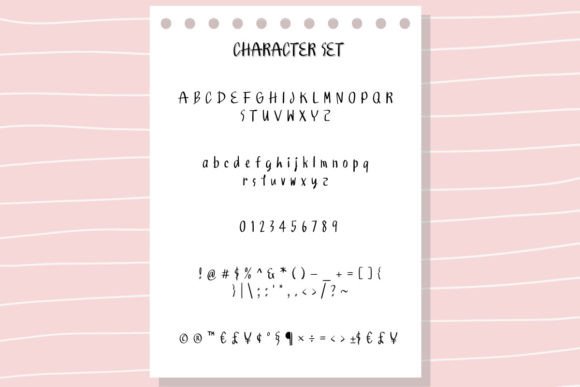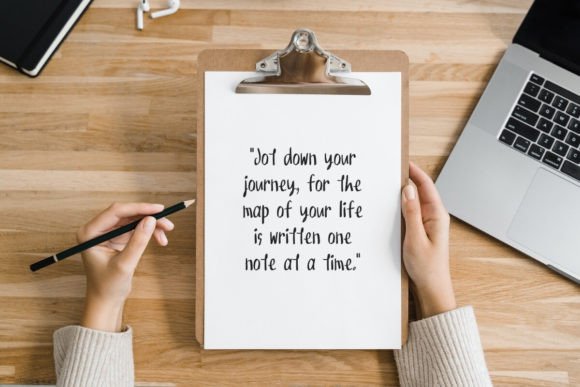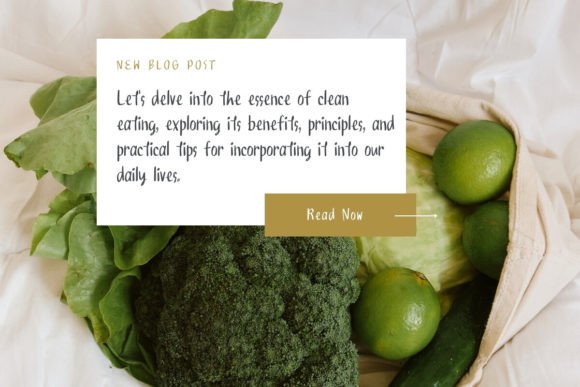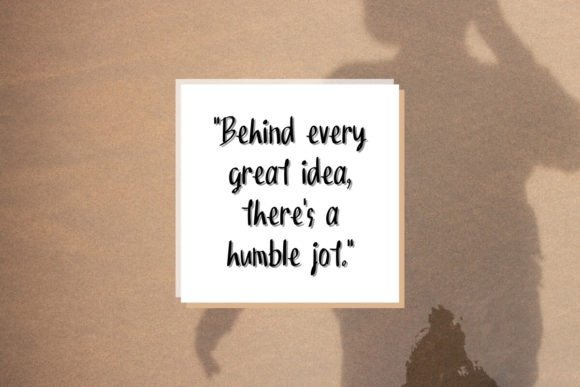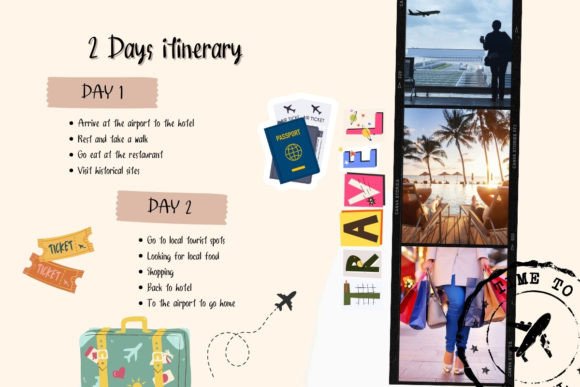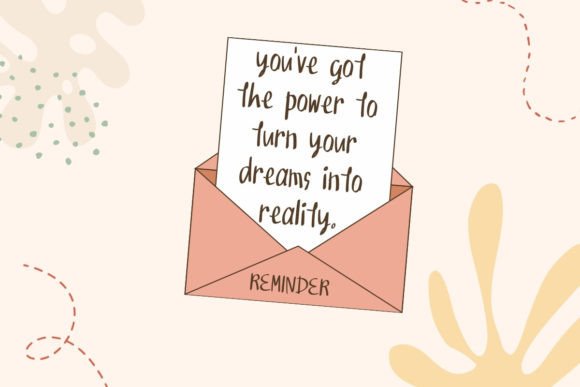
Introduction to Jotifyme Font
Meet JotifyMe, a neat and cute handwriting font that adds a personal touch to every project.
With its clear and charming style, JotifyMe is perfect for everything from greeting cards and invitations to planners and notebooks Its friendly appearance makes your notes and to-dos not only easy to read but also beautifully expressive.
Key Features of Jotifyme Font